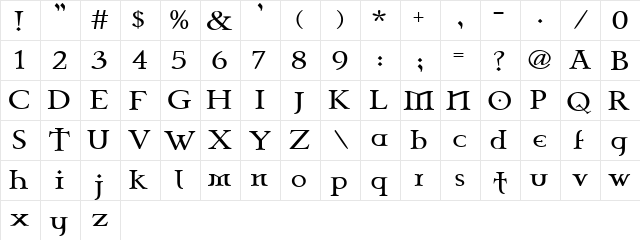
Celtic Garamond the 2nd Regular
Design Context for Celtic Garamond the 2nd Typeface
Celtic Garamond the 2nd takes a measured approach to typography — its balanced proportions and neutral character make it a reliable workhorse for both digital and print work.